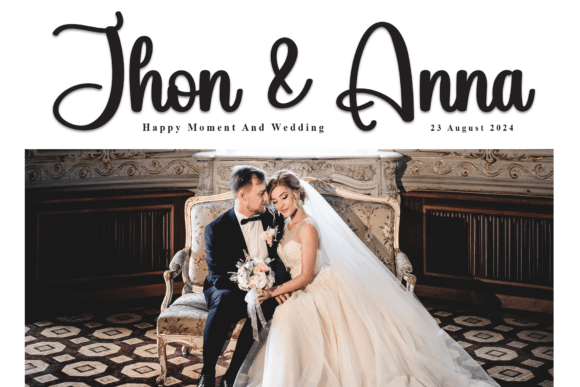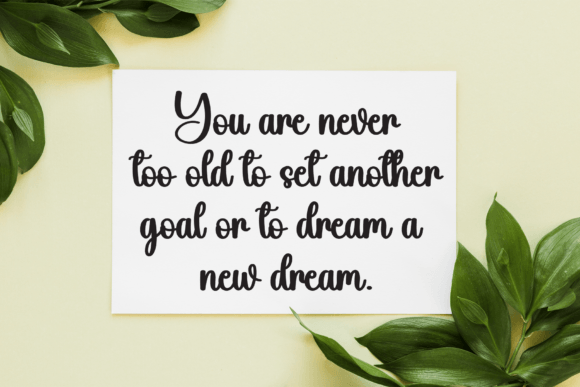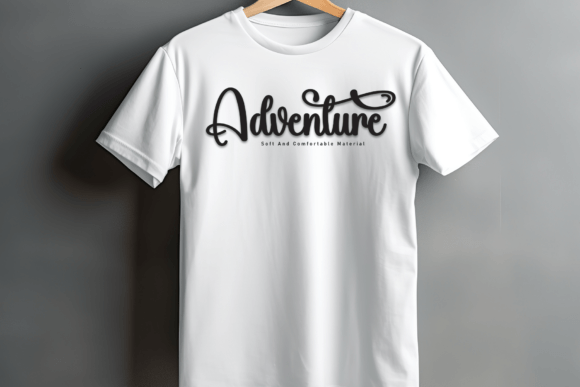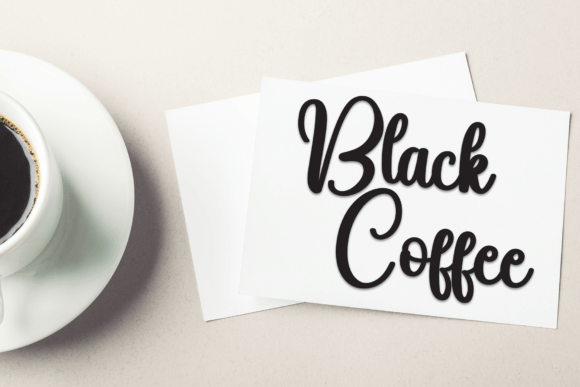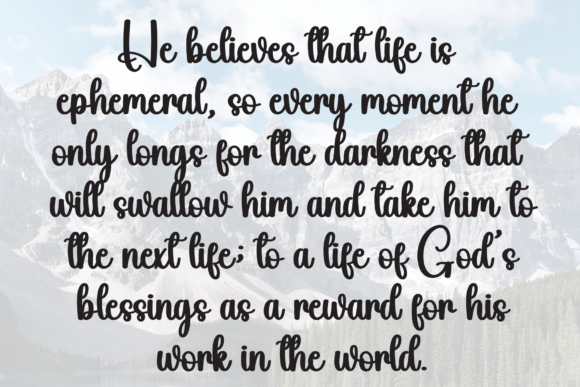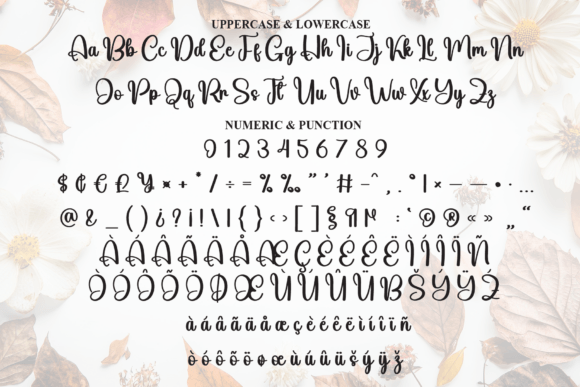
The Cozy Charm of Autumn Font: A Designer’s New Best Friend
I’ll never forget the struggle I faced while working on a fall-themed project last year. My client wanted a font that embodied the warmth and coziness of the season, but I was coming up blank. That’s when I stumbled upon Autumn Font, a bold, handwritten font that instantly captured the essence of autumn. In this article, I’ll share my experience with Autumn Font, its features, and how to make the most of it in your designs.
Autumn Font has become a staple in my design toolkit, and here’s why:
- ✨ Warm and Cozy Feel: The font’s playful letters evoke a sense of comfort and warmth, perfect for fall-themed projects or any design that needs a personal touch.
- ✅ Highly Versatile: Autumn Font works well for both digital and print projects, from social media graphics to invitations and flyers.
- 🎉 Easy to Read: Despite its bold and playful nature, the font remains highly legible, even at smaller sizes.
However, I do have a few minor quibbles:
- 🤔 Limited Formality: Autumn Font is, by design, a casual and informal font. It might not be the best choice for projects that require a more formal or professional tone.
- ⚠️ Glyph Limitations: While the font has a wide range of glyphs, it might not have every special character or symbol you need. Be sure to check the font’s capabilities before committing to a project.
The Story Behind Autumn Font
Autumn Font was designed by a talented typographer who wanted to capture the essence of the fall season in a single font. Inspired by the warm colors and cozy textures of autumn, the designer created a font that’s both playful and inviting. While the designer’s story is fictional, the font’s charm and character are very real.
| What type of projects is Autumn Font best suited for? | Autumn Font is perfect for fall-themed projects, such as invitations, flyers, and social media graphics. It’s also great for designs that require a personal touch, like blogs, magazines, and craft projects. |
| Is Autumn Font available in different weights or styles? | Currently, Autumn Font is available in a single weight. However, the designer may release additional weights or styles in the future, so keep an eye on their website for updates. |